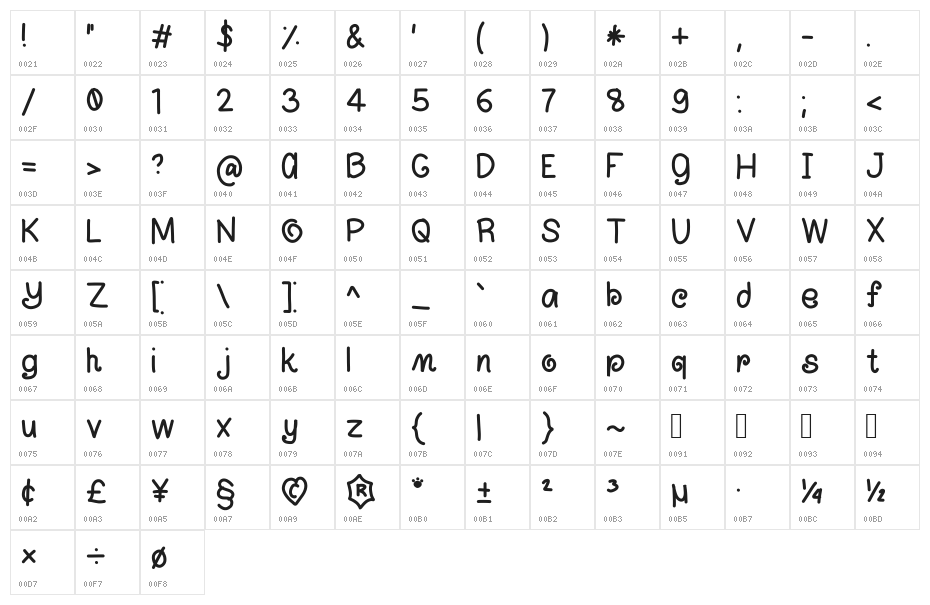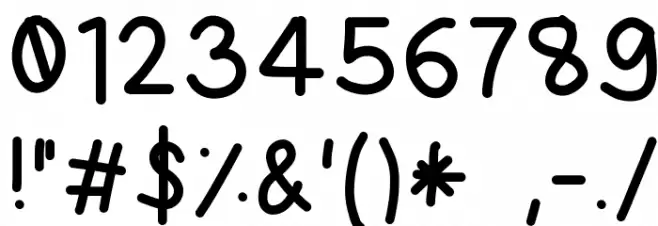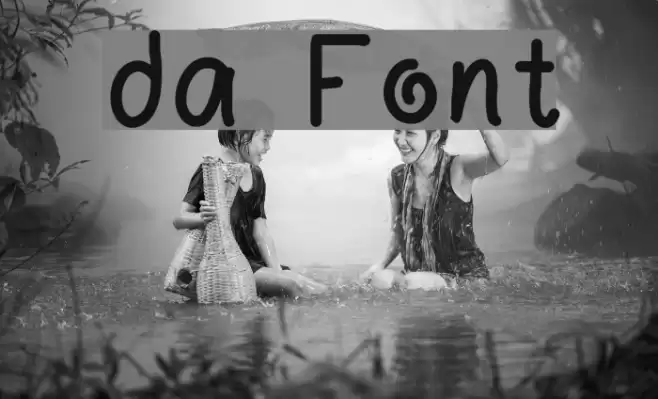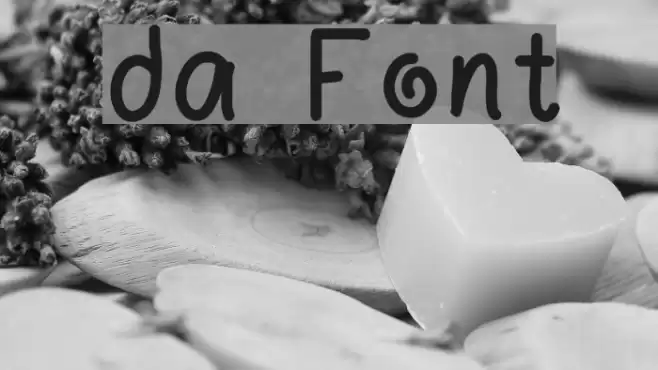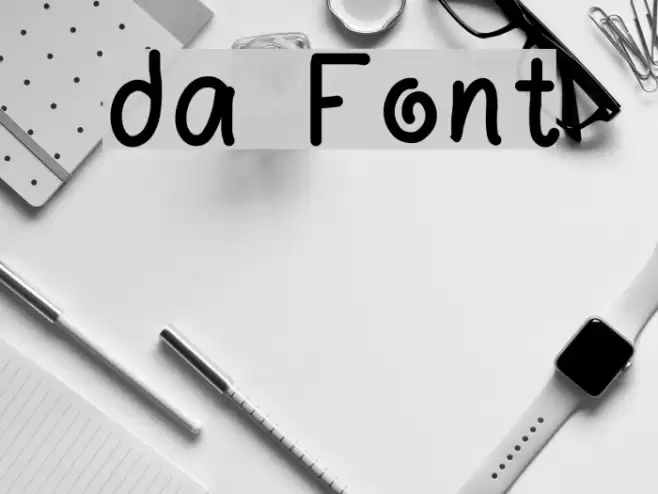
da Font
da Description
This playful and rounded font features a casual and friendly style, characterized by its smooth curves and slightly irregular shapes. The letters have a hand-drawn appearance, with a consistent stroke width that gives it a cohesive look. The uppercase and lowercase letters are well-balanced, and the numerals are clearly distinguishable. Special characters are included, maintaining the same whimsical style. This font is ideal for projects that require a touch of informality and approachability.
| Overall Style | Casual, Playful |
| Use Case | Headlines, Logos, Informal Text |
| Proposed Projects | Ideal for children's books, greeting cards, playful branding, and informal invitations. |